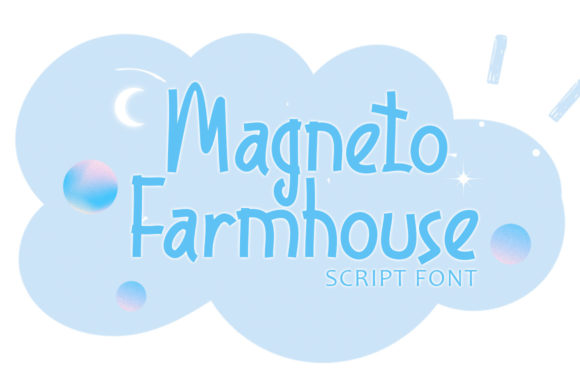
Introducing Magneto Farmhouse Font: The Ultimate Modern Handwritten Font
In the world of typography, fonts play a crucial role in conveying messages, expressing emotions, and creating a lasting impression. With the vast array of fonts available, it can be challenging to find the perfect one that stands out from the rest. However, if you’re looking for a unique, fresh, and modern handwritten font, look no further than Magneto Farmhouse Font. In this article, we’ll explore the features, benefits, and uses of Magneto Farmhouse Font, and why it’s becoming a favorite among designers and creatives.
What is Magneto Farmhouse Font?
Magneto Farmhouse Font is a very unique, fresh, and modern handwritten font. Its distinctive style sets it apart from other fonts, making it perfect for a wide range of design applications. Whether you’re looking to create stunning title designs, eye-catching logos, or beautiful stationery, Magneto Farmhouse Font is the ideal choice.
What Can You Use Magneto Farmhouse Font For?
Magneto Farmhouse Font is a versatile font that can be used for various design projects, including:
- Clothing designs: Create stunning apparel designs with Magneto Farmhouse Font, perfect for t-shirts, hoodies, and more.
- Invitations: Make your invitations stand out with the unique and modern style of Magneto Farmhouse Font.
- Book titles: Add a touch of elegance and sophistication to your book titles with Magneto Farmhouse Font.
- Stationery designs: Create beautiful stationery designs, including notebooks, journals, and more.
- Quotes: Make your quotes stand out with the bold and modern style of Magneto Farmhouse Font.
- Branding: Use Magneto Farmhouse Font to create a unique and memorable brand identity.
- Logos: Create stunning logos that make a lasting impression with Magneto Farmhouse Font.
- Greeting cards: Make your greeting cards special with the fresh and modern style of Magneto Farmhouse Font.
- T-shirts: Design eye-catching t-shirts with Magneto Farmhouse Font.
- Packaging designs: Create beautiful packaging designs that stand out on store shelves.
- Posters: Make your posters bold and eye-catching with Magneto Farmhouse Font.
Benefits of Using Magneto Farmhouse Font
Magneto Farmhouse Font offers several benefits that make it a popular choice among designers and creatives. Some of the benefits include:
- Unique and distinctive style: Magneto Farmhouse Font has a unique and modern style that sets it apart from other fonts.
- Fresh and modern look: The font has a fresh and modern look that makes it perfect for designs that require a contemporary feel.
- Versatile: Magneto Farmhouse Font can be used for a wide range of design applications.
- Easy to read: The font is easy to read, making it perfect for body text and headings.
- Scalable: Magneto Farmhouse Font is scalable, making it perfect for designs that require large or small text.
Tips for Using Magneto Farmhouse Font
To get the most out of Magneto Farmhouse Font, here are some tips to keep in mind:
- Use it for titles and headings: Magneto Farmhouse Font is perfect for titles and headings, making it a great choice for designs that require bold and eye-catching text.
- Pair it with other fonts: Magneto Farmhouse Font can be paired with other fonts to create a unique and interesting design.
- Experiment with colors: The font looks great in a variety of colors, so don’t be afraid to experiment and find the perfect color for your design.
- Use it for branding: Magneto Farmhouse Font can be used to create a unique and memorable brand identity.